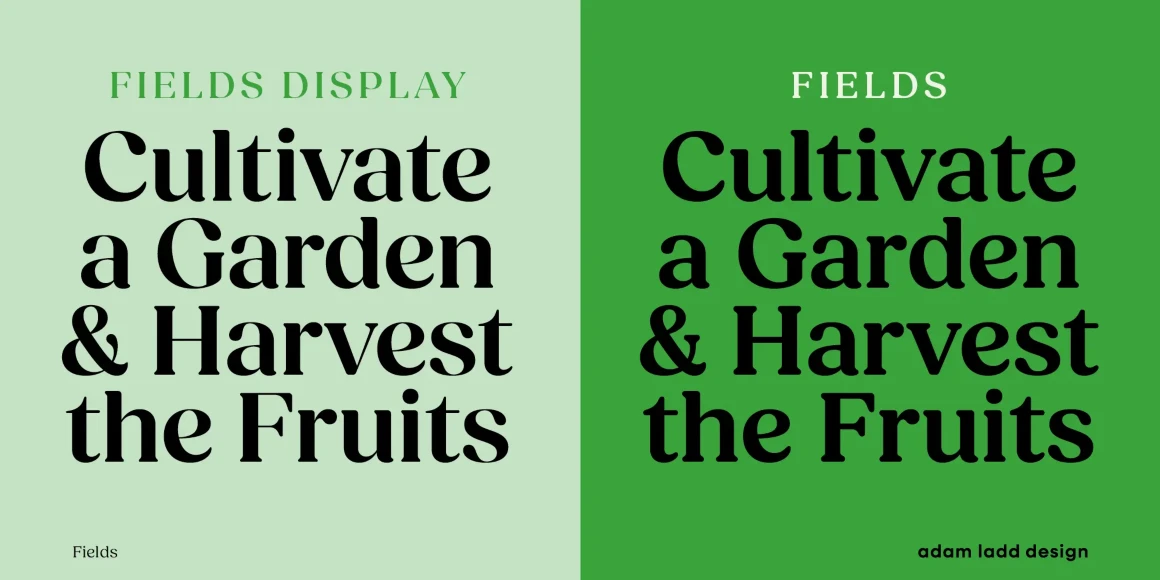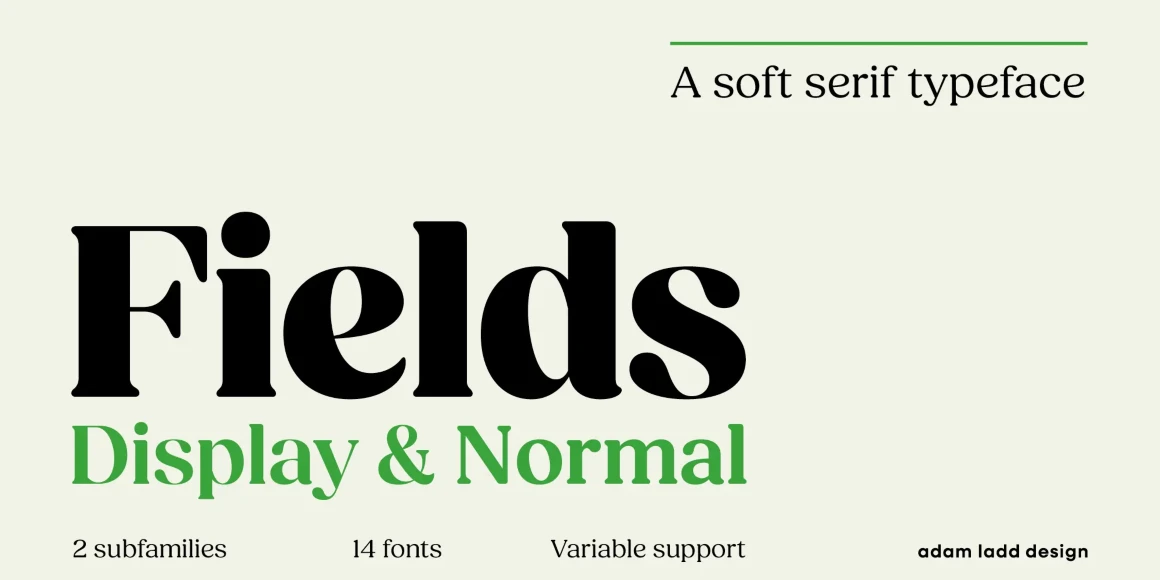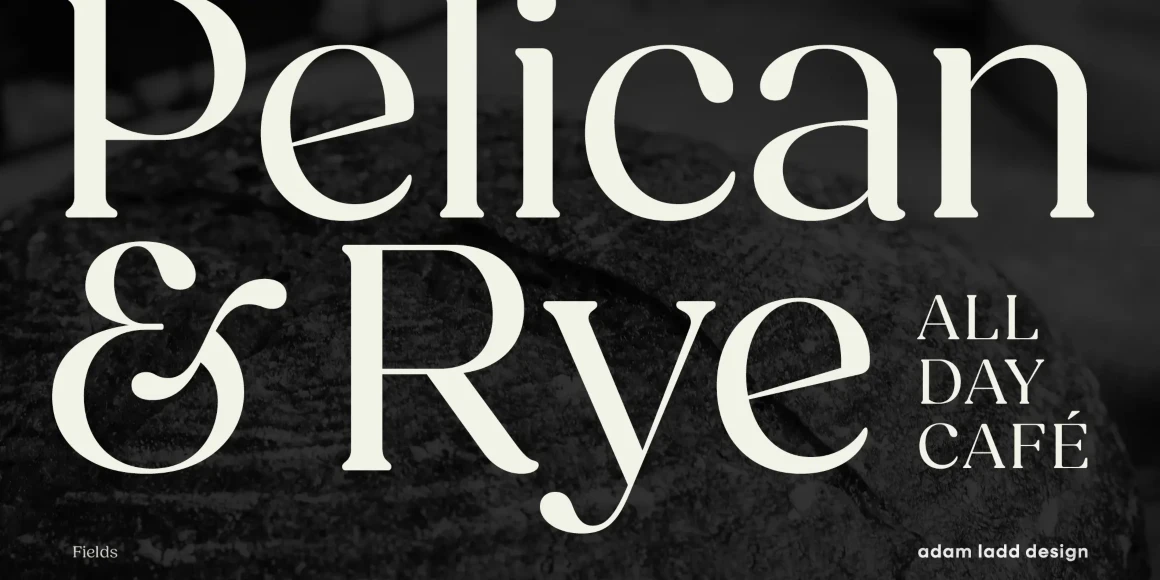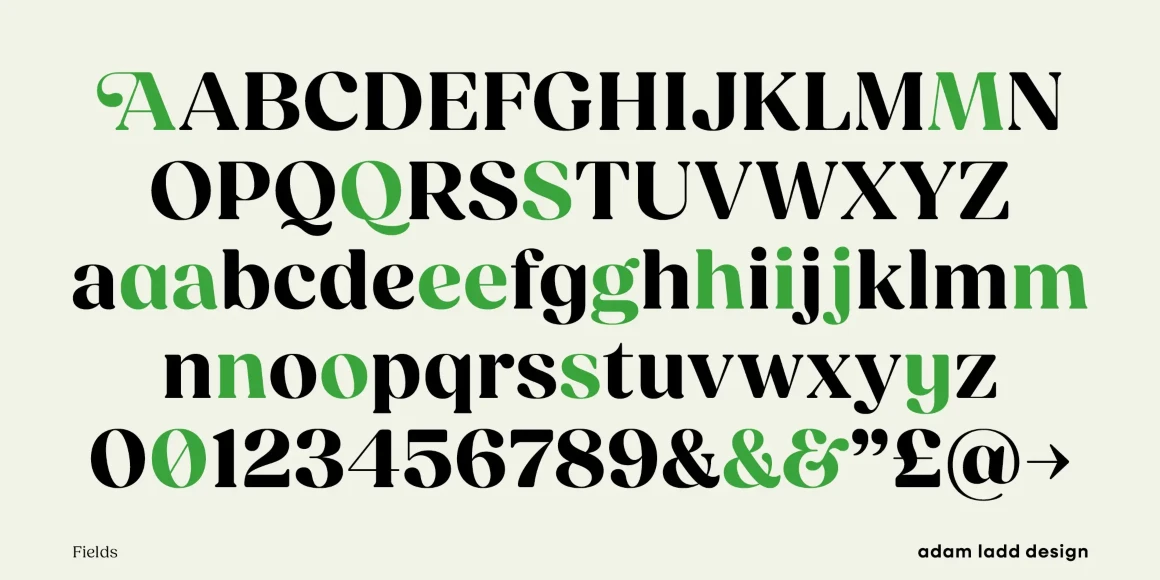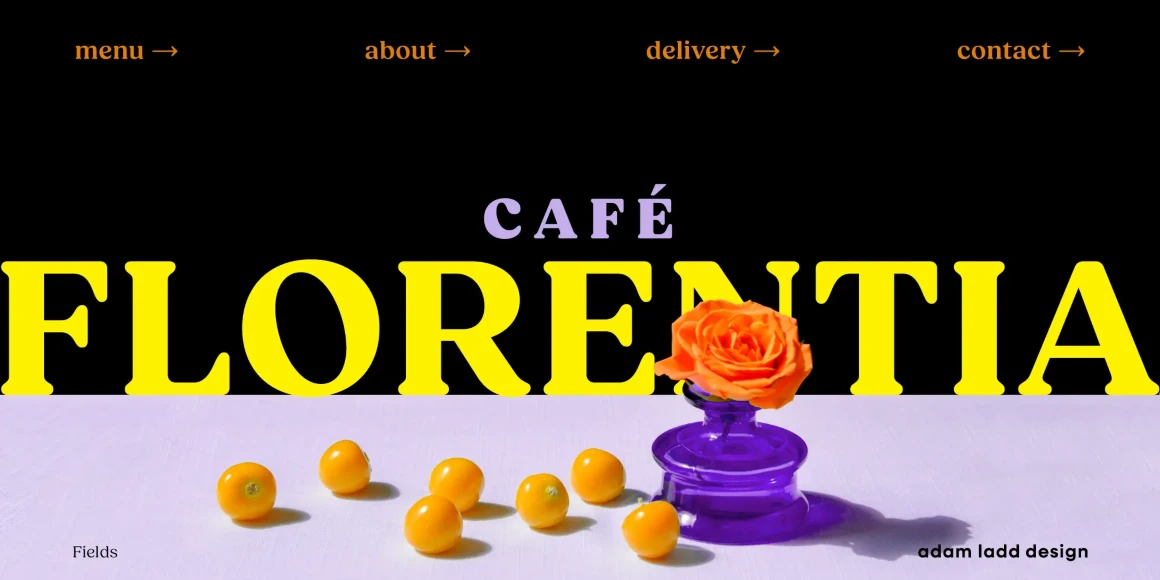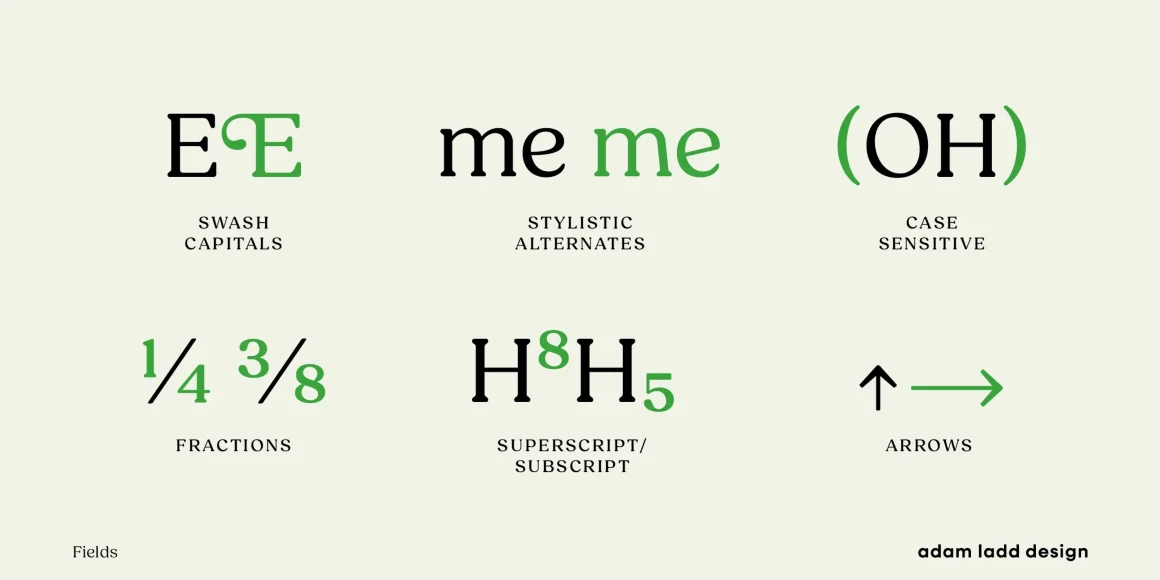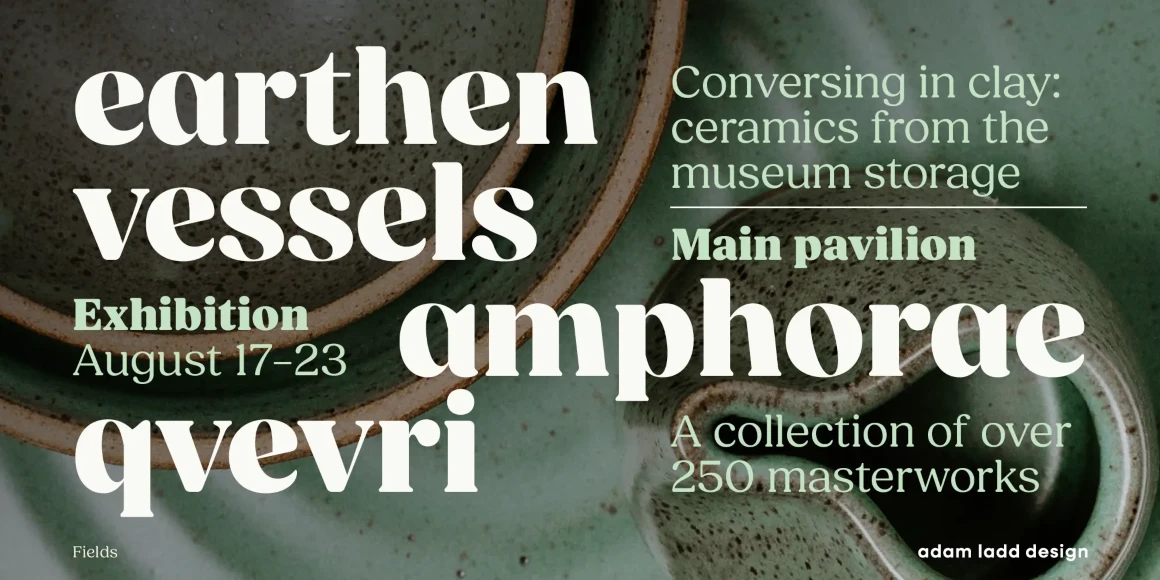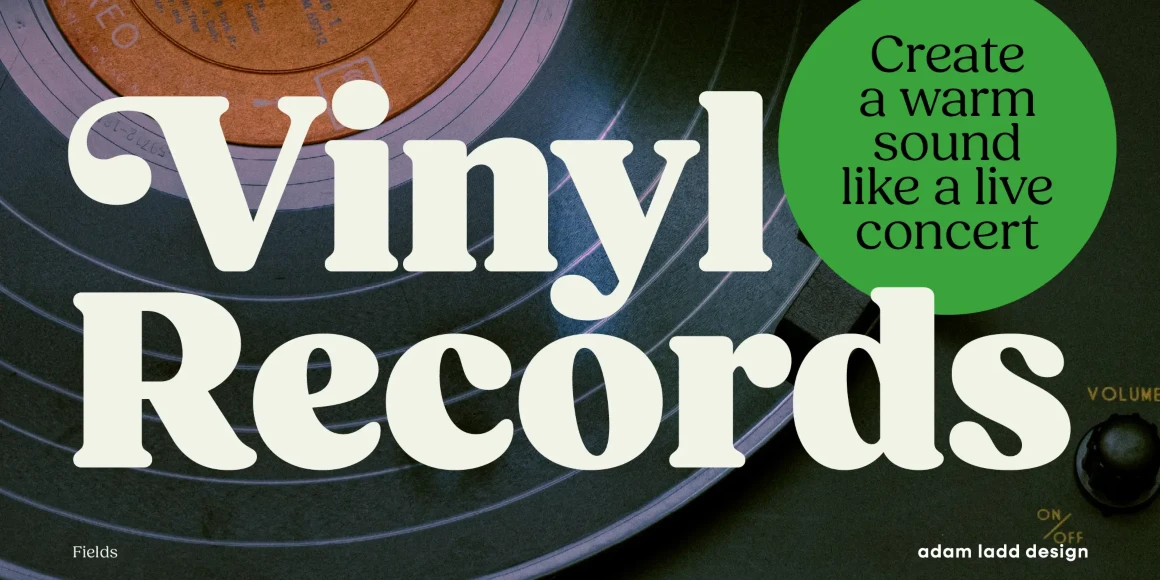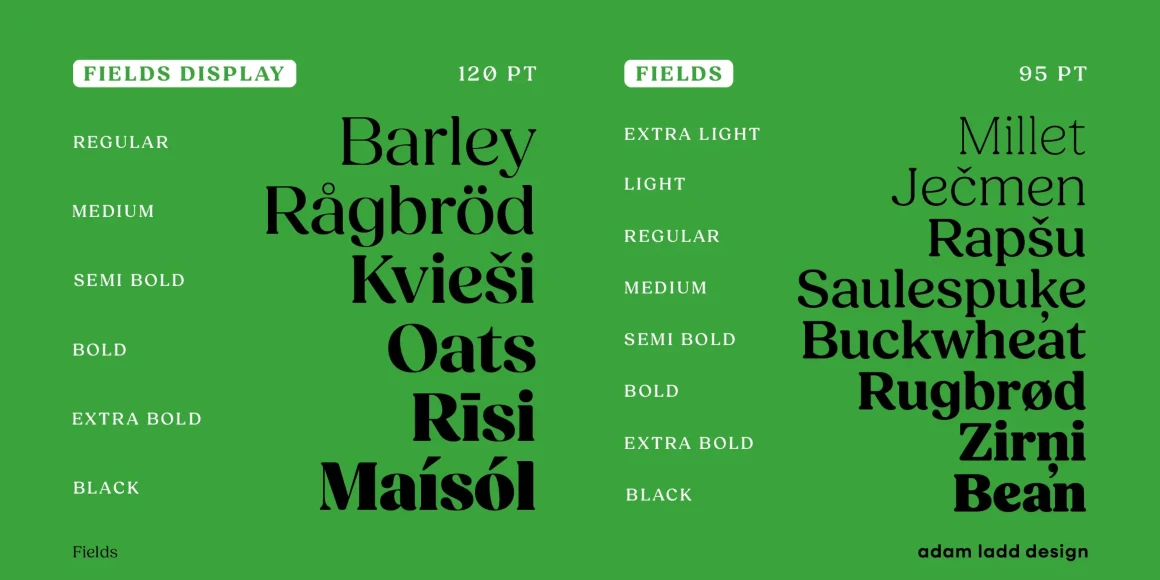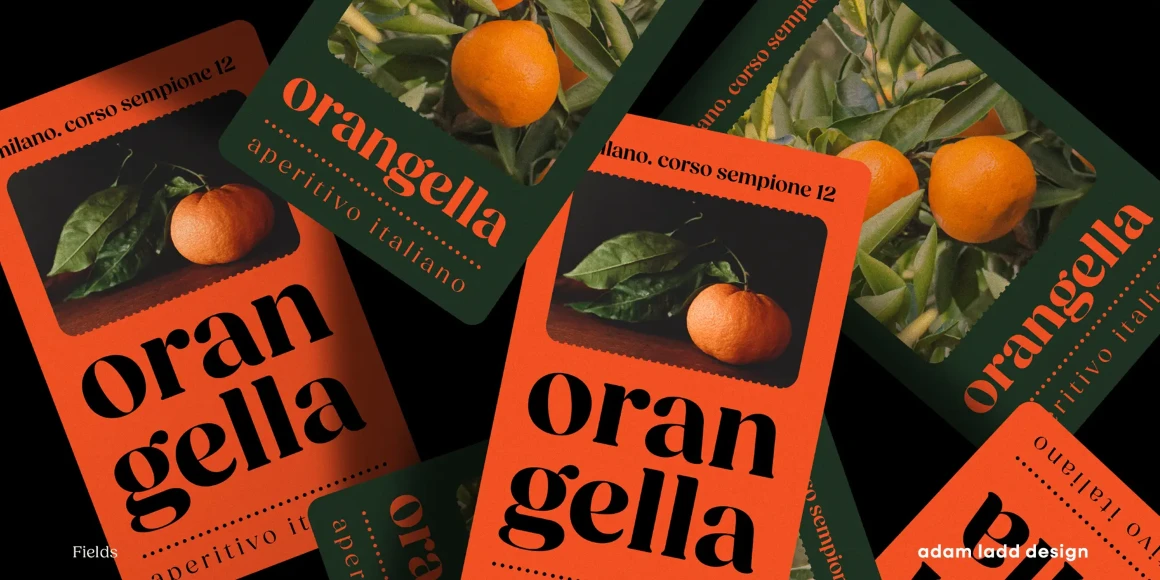
Fields
By Adam Ladd
Fields, Fields Display, and now Fields Big are a versatile family with three optical sizes blending casual, retro tones with modern touches. The details like rounded serifs, teardrop terminals, and subtle tails make this typeface friendly and approachable. Fields is excellent for branding! Whether you want that vintage 1970s vinyl record vibe or on-trend packaging with a nod to the handmade. Fields Variable can precisely fine-tune the tone of voice and meet your typographic goals and needs.